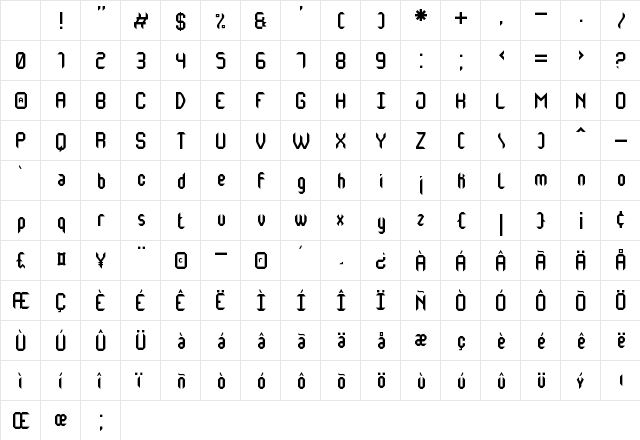
Monster oF South St Regular Free Font
Monster oF South St Regular
Designer: This font is an original work of southype dot com
Design Context for Monster oF South St
Monster oF South St is a composed and adaptable typeface that performs quietly and consistently across a wide range of design contexts.